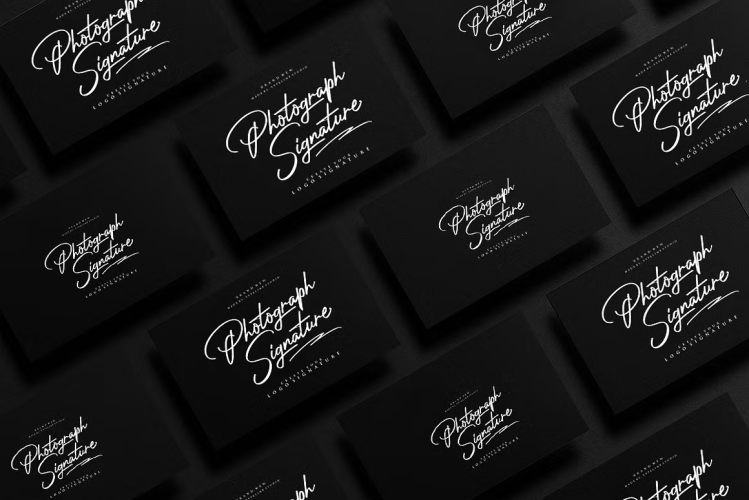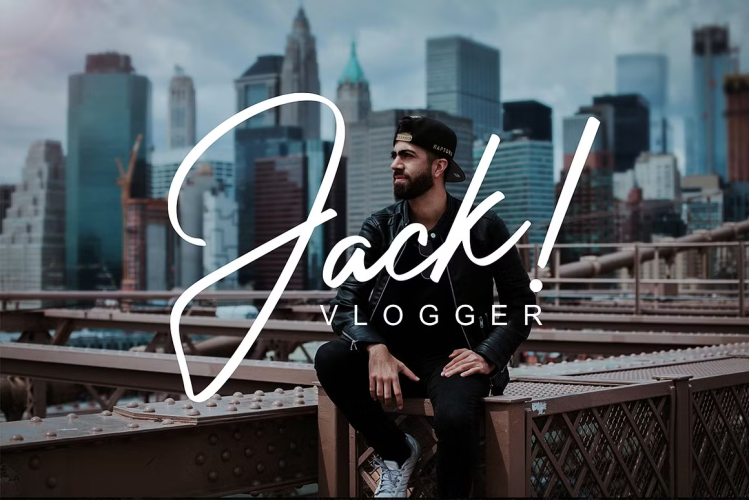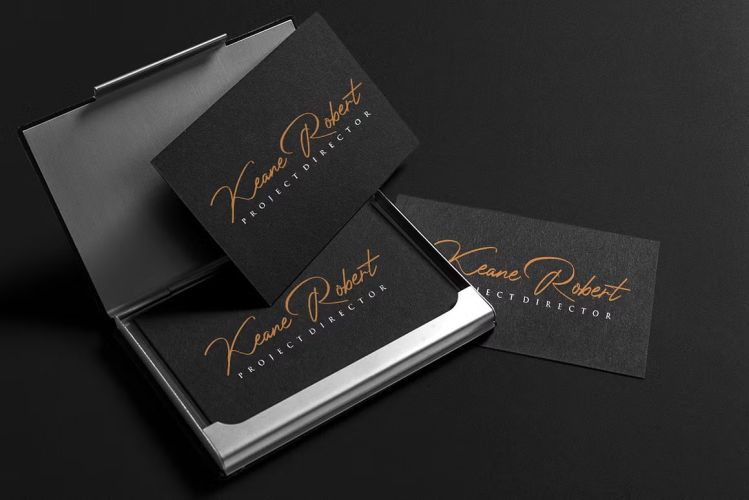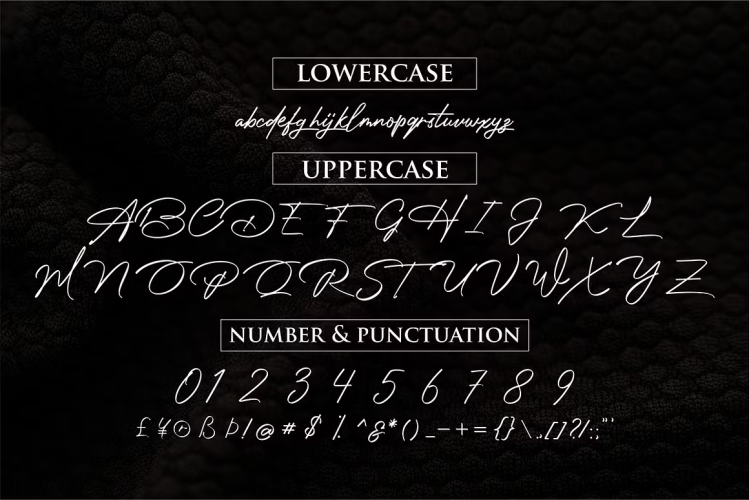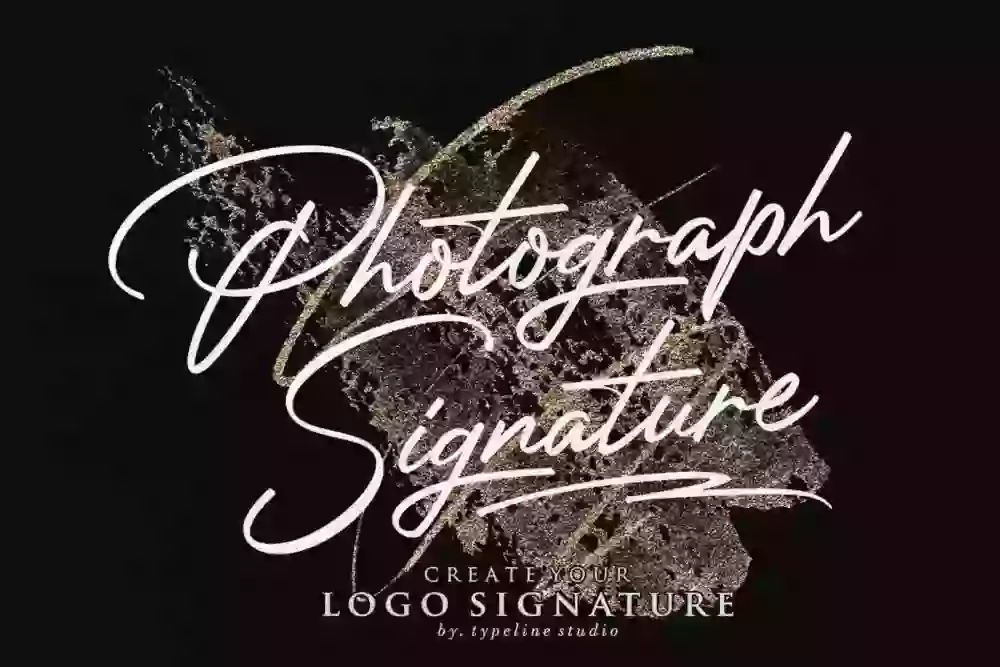
Photograph Signature Font
I presented our newest product, photograph signature font; I believe this font would be suitable for creating signature logos or logo signatures and for watermarking for photography studios, personal or branding. I gave it an air of elegance and professionalism, and it was very catchy.
You can try it by typing the name you desire at the bottom. It is so simple, but it makes it luxurious. This font includes a lowercase alternative that looks like handwriting made with a pen, which makes it suitable for signatures, logos, watermark photos, and much more.
Just write. This is an excellent choice because you can create a personalized signature and logo.
I will try making italics and slant versions if this font is enticing or valuable for many reasons, such as signatures, logos, and watermarks.
Photograph Signature Font is a Script And Handwritten font that brings a professional and versatile look to your projects. I presented our newest product, photograph signature font; I believe this font would be suitable for creating signature logos or logo signatures and for watermarking for photography studios, personal or branding.